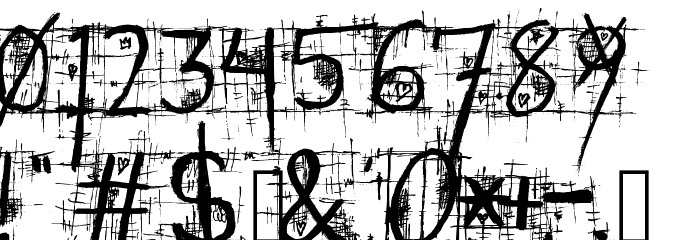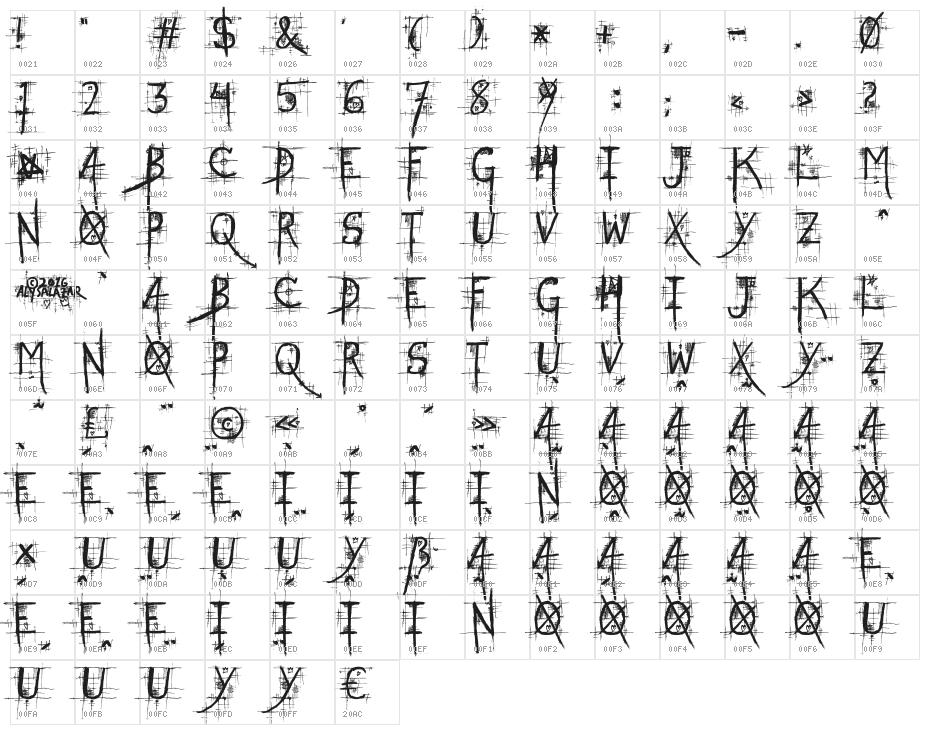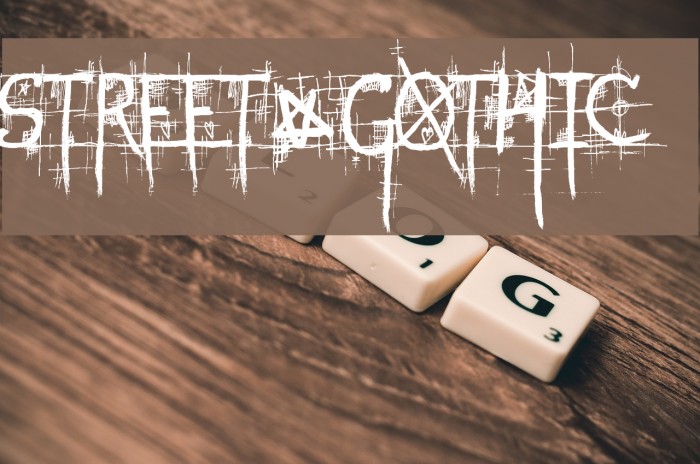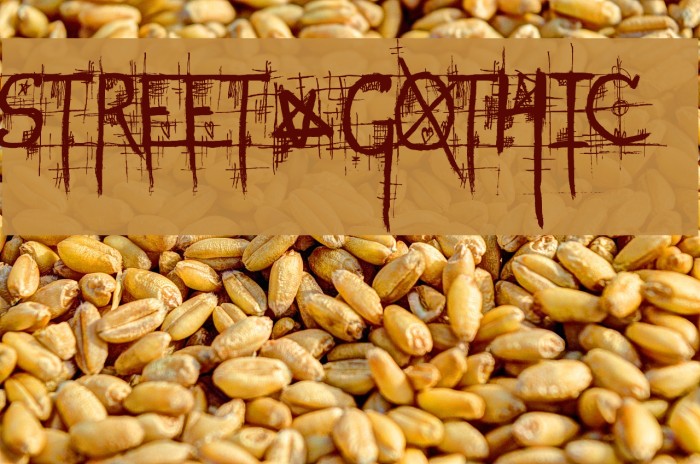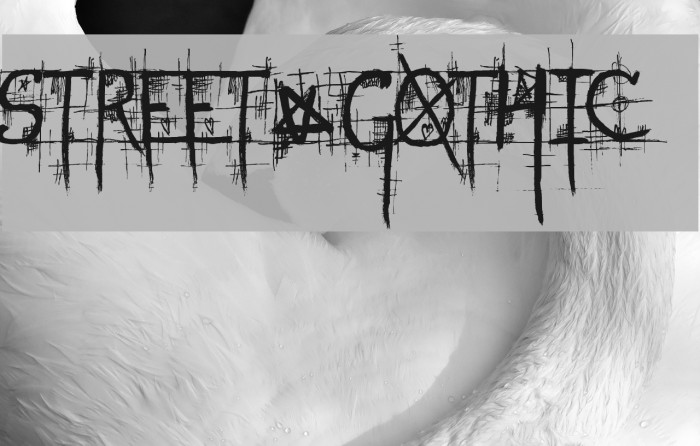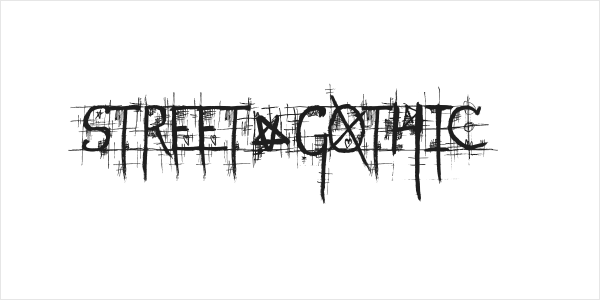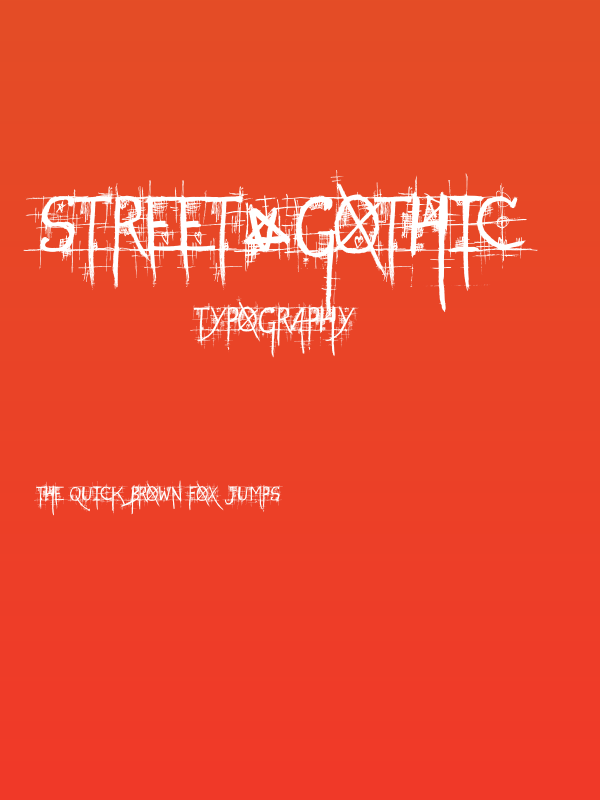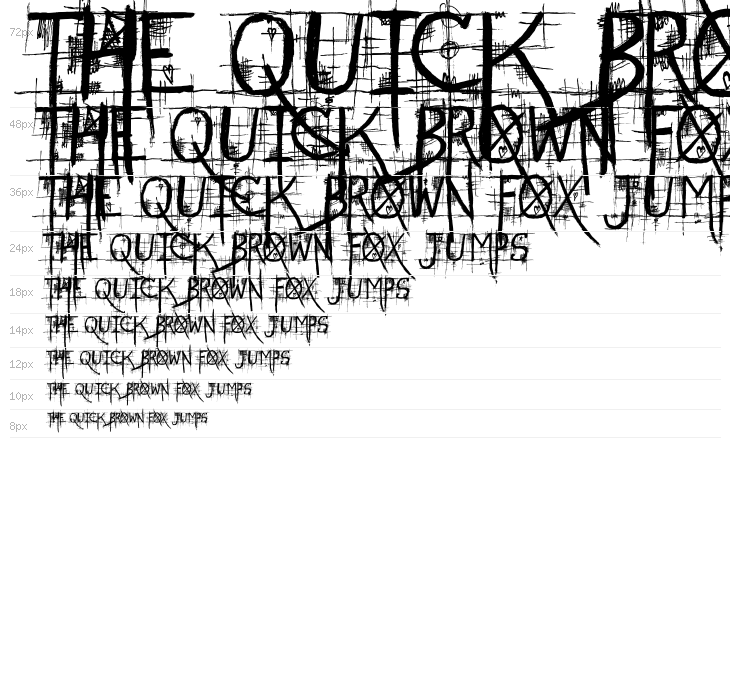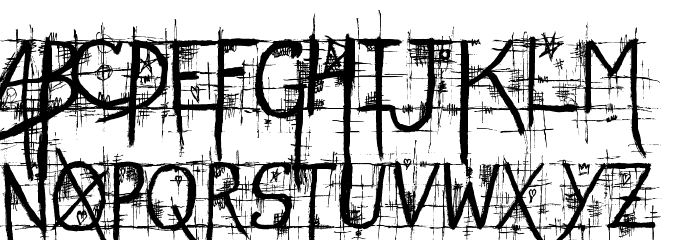
STREET@GOTHIC Font
STREET@GOTHIC Description
This font features a gritty, urban aesthetic with a distinctly distressed appearance. The characters are designed with rough, jagged edges and a hand-drawn style that evokes a sense of raw energy and rebellion. The uppercase letters are bold and striking, with unique embellishments that add to their edgy appeal. The lowercase letters maintain the same rugged style, ensuring consistency throughout the typeface. Numbers and special characters are equally dynamic, incorporating the same distressed elements. This font is perfect for projects that require a bold, unconventional look, such as street art, music album covers, or edgy branding materials.
| Overall Style | Urban, Edgy, Distressed |
| Proposed Projects | Ideal for street art, music album covers, edgy branding, and rebellious-themed designs. |